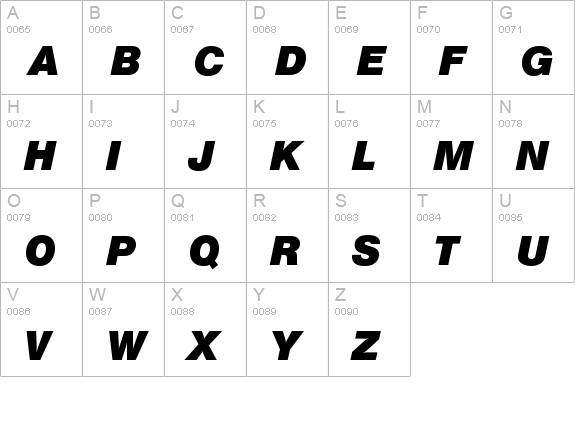
Olympia-HeavyIta Font Details
Olympia-HeavyIta is a stunning and bold display font that exudes strength and elegance. With its sleek lines and modern design, this typeface is perfect for making a statement in any project. Whether you're creating a logo, poster, or branding material, Olympia-HeavyIta will surely captivate your audience with its powerful presence. The best part? Olympia-HeavyIta is available for free download at FontsMarket.com. This means you can easily access this premium font without breaking the bank. Don't miss out on the opportunity to elevate your designs with the sophisticated charm of Olympia-HeavyIta. Download it now and unleash your creativity!